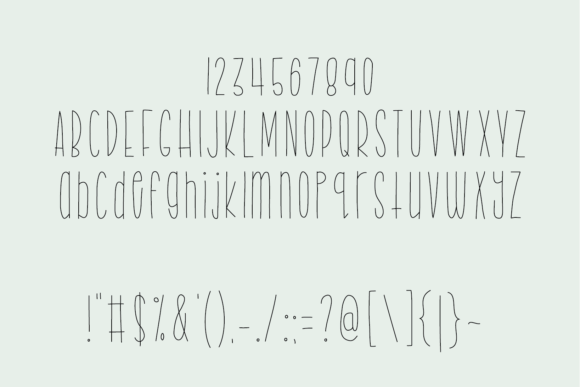
Love Bug Font
Introducing Lovebug, a whimsical and delicate hairline font that brings a playful yet elegant touch to any project. Its thin, hand-drawn strokes make it perfect for a wide range of creative uses, from scrapbooking and DIY projects to digital designs, invitations, and stationery. Whether you’re scoring, sketching, or using foil quill, Lovebug adds a unique charm with its quirky character set and delightful extras like arrows, hearts, and other decorative elements. With full support for accented characters, Lovebug is versatile enough for both personal and professional projects across multiple languages. Add a little love to your designs with this enchanting font!